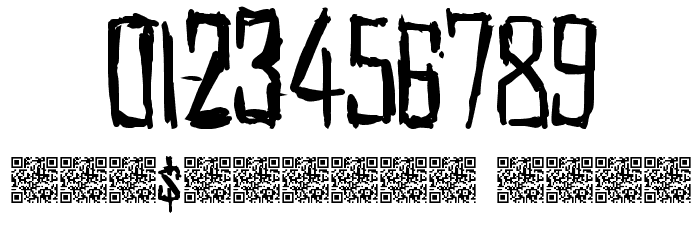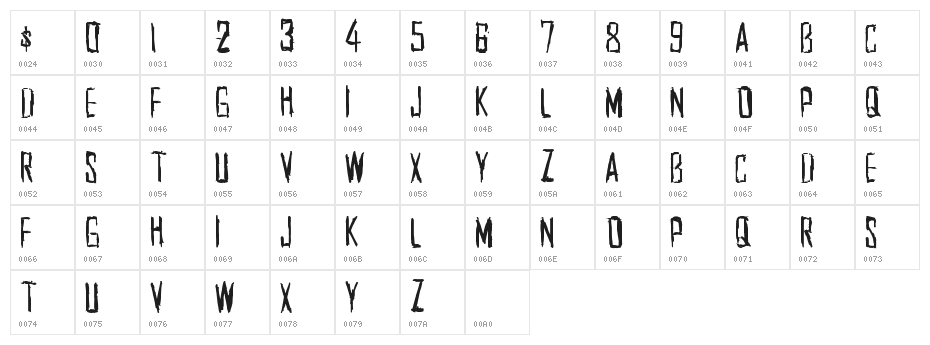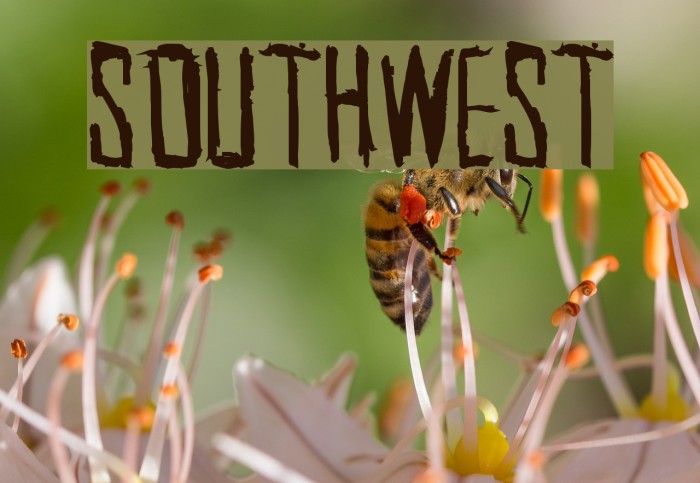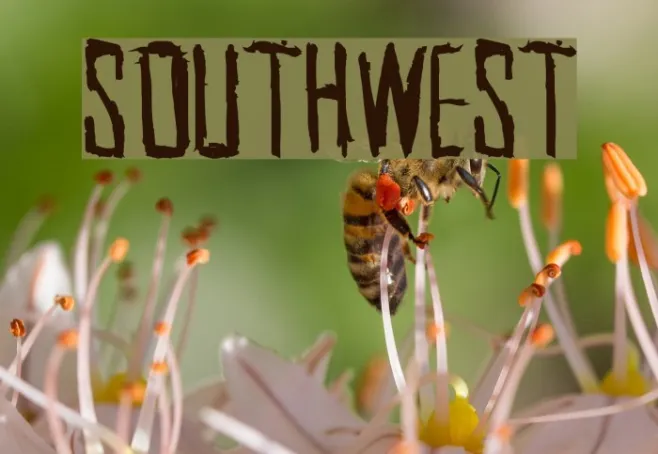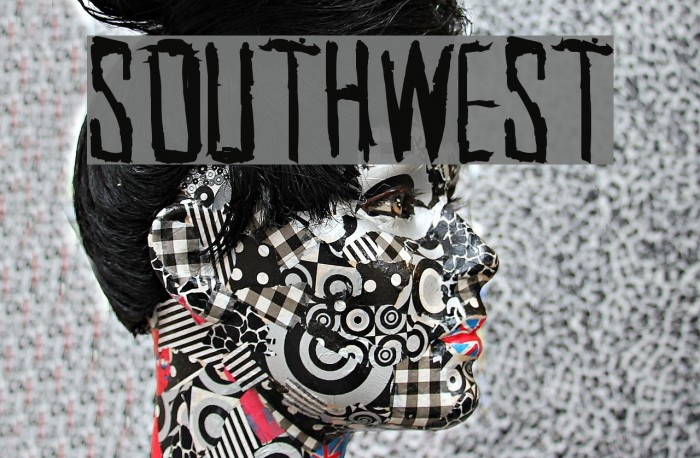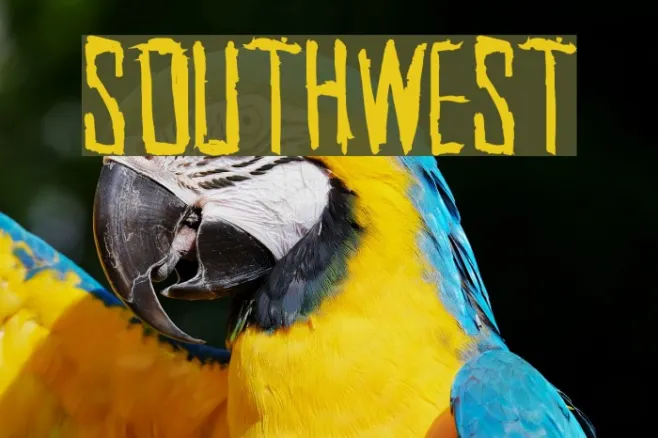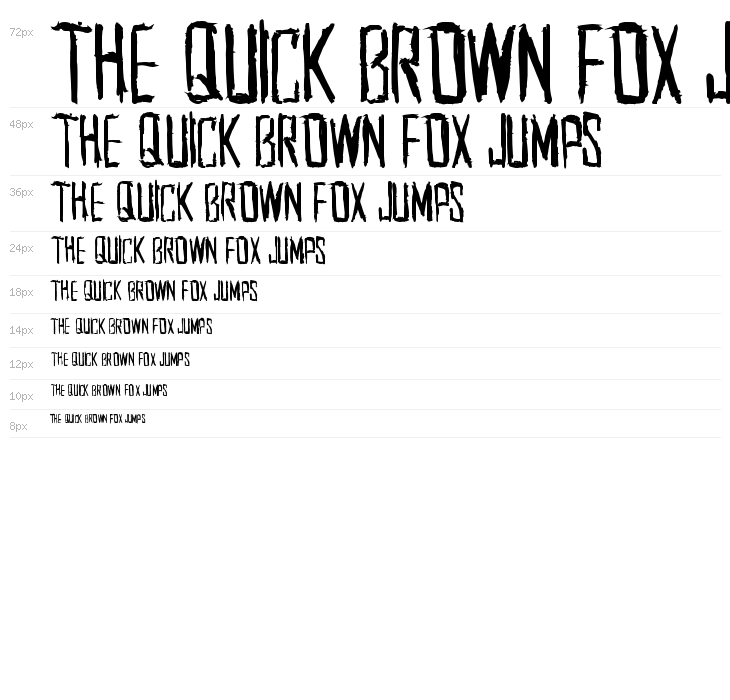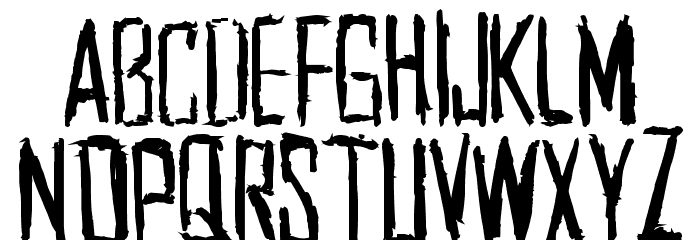
SouthWest Font
SouthWest Description
This font features a rugged, distressed appearance, reminiscent of hand-painted or graffiti styles. The characters are bold and uneven, with jagged edges and varying stroke widths, giving it a raw and edgy look. The uppercase and lowercase letters maintain a consistent height, while the numbers and special characters follow the same rough aesthetic. This font exudes a rebellious and energetic vibe, making it ideal for projects that require a bold statement. Its unique style captures attention and conveys a sense of urgency and dynamism.
| Proposed Projects | Ideal for music album covers, streetwear branding, posters, and urban-themed designs. |